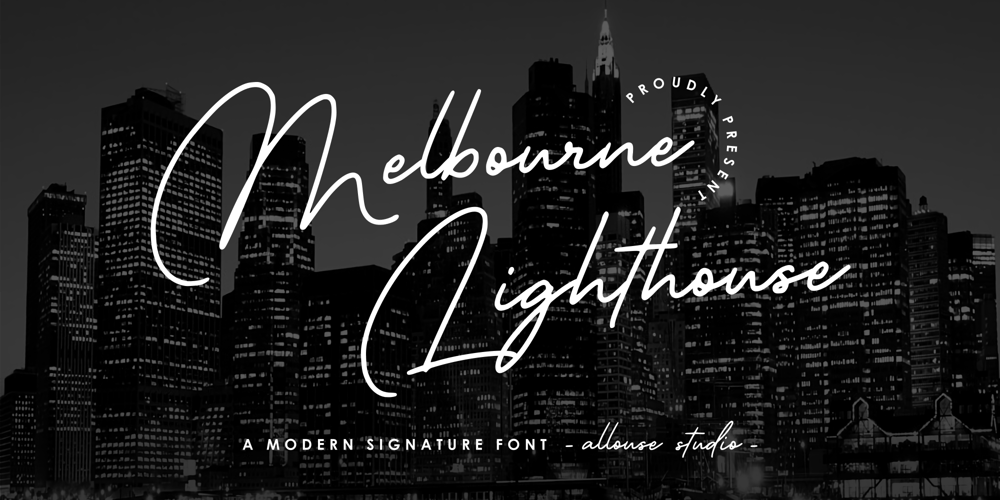
Melbourne Lighthouse
Melbourne Lighthouse font
Melbourne Lighthouse Font Family was designed by Fachrizal Yusuf and published by Allouse Studio. Melbourne Lighthouse contains 1 styles and family package options. Proudly Presenting, Melbourne Lighthouse A Modern Signature FontMelbourne Lighthouse is perfect for any titles, logo, product packaging, branding project, megazine, social media, wedding, or just used to express words above the background.Melbourne Lighthouse also come with Multi-Lingual Support.